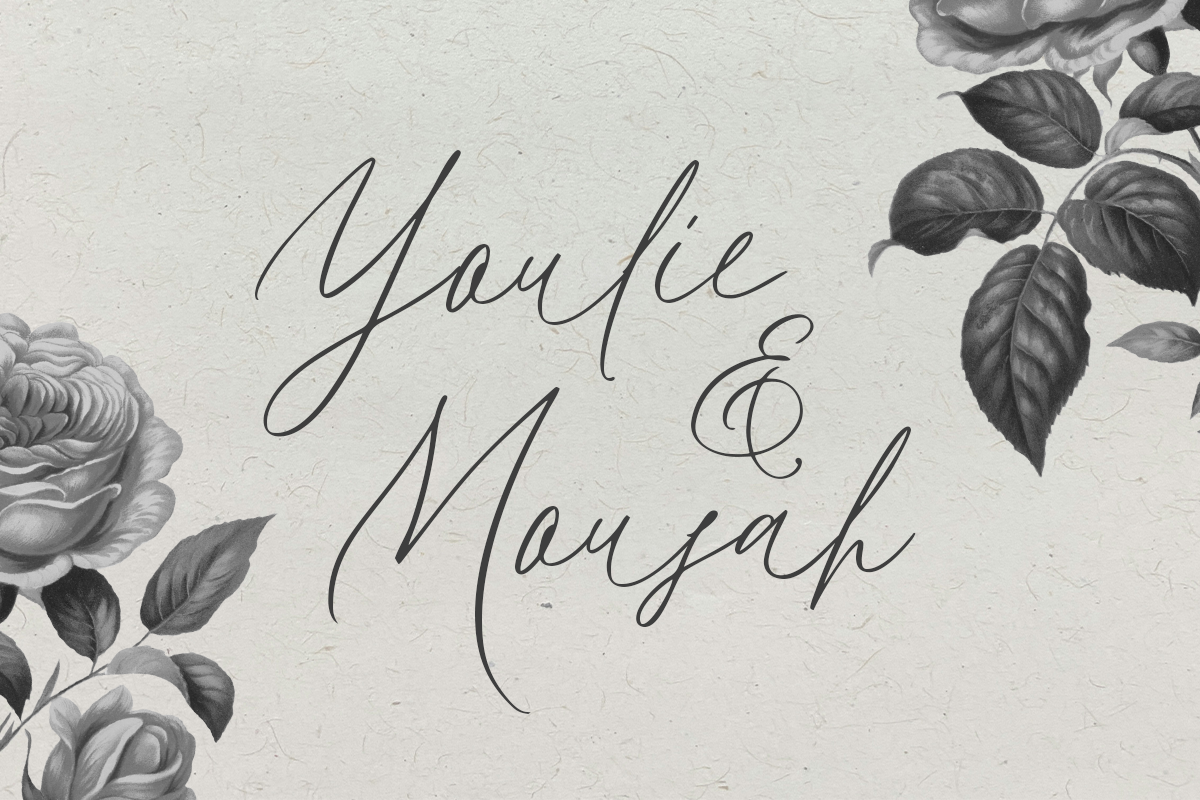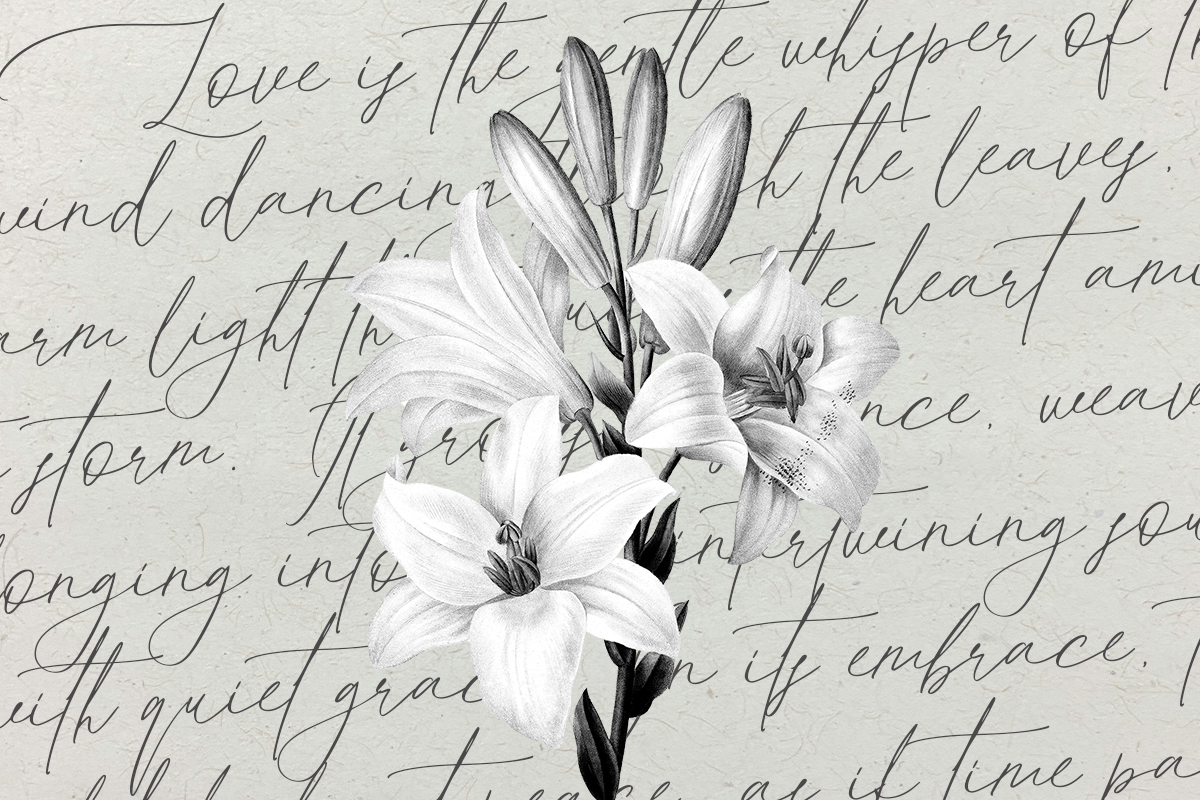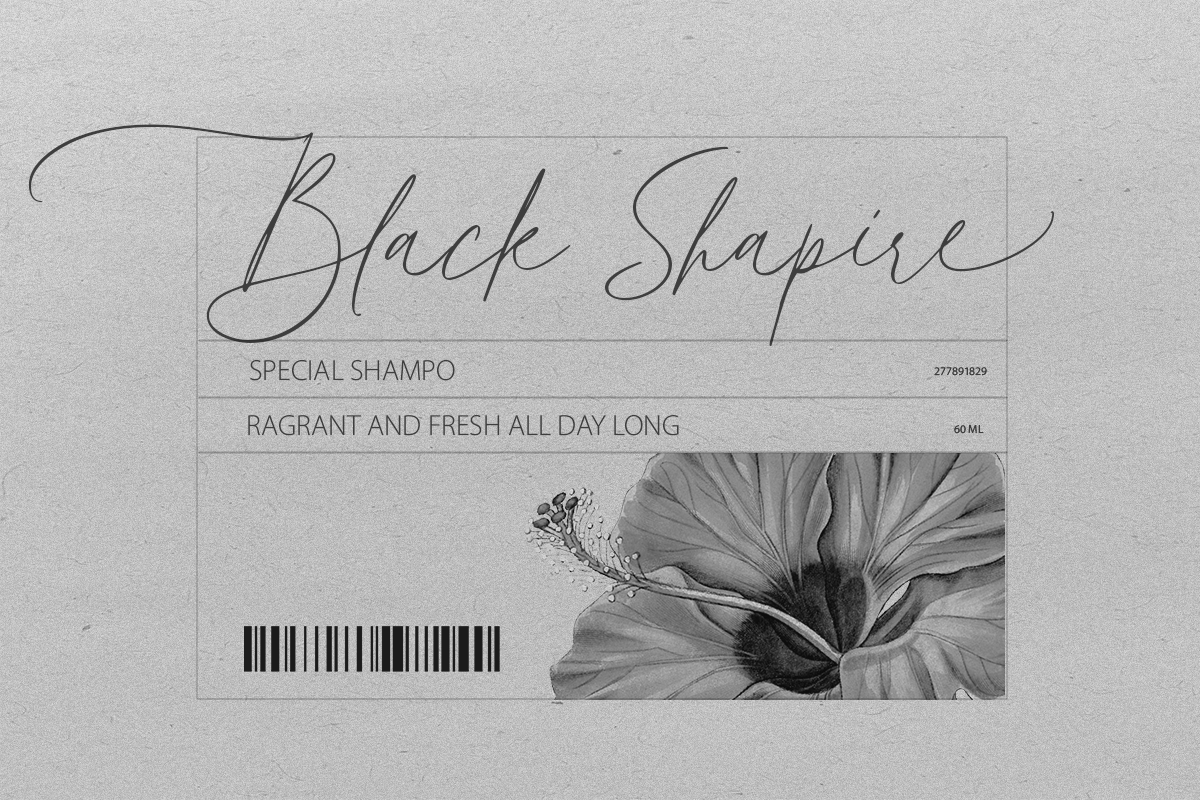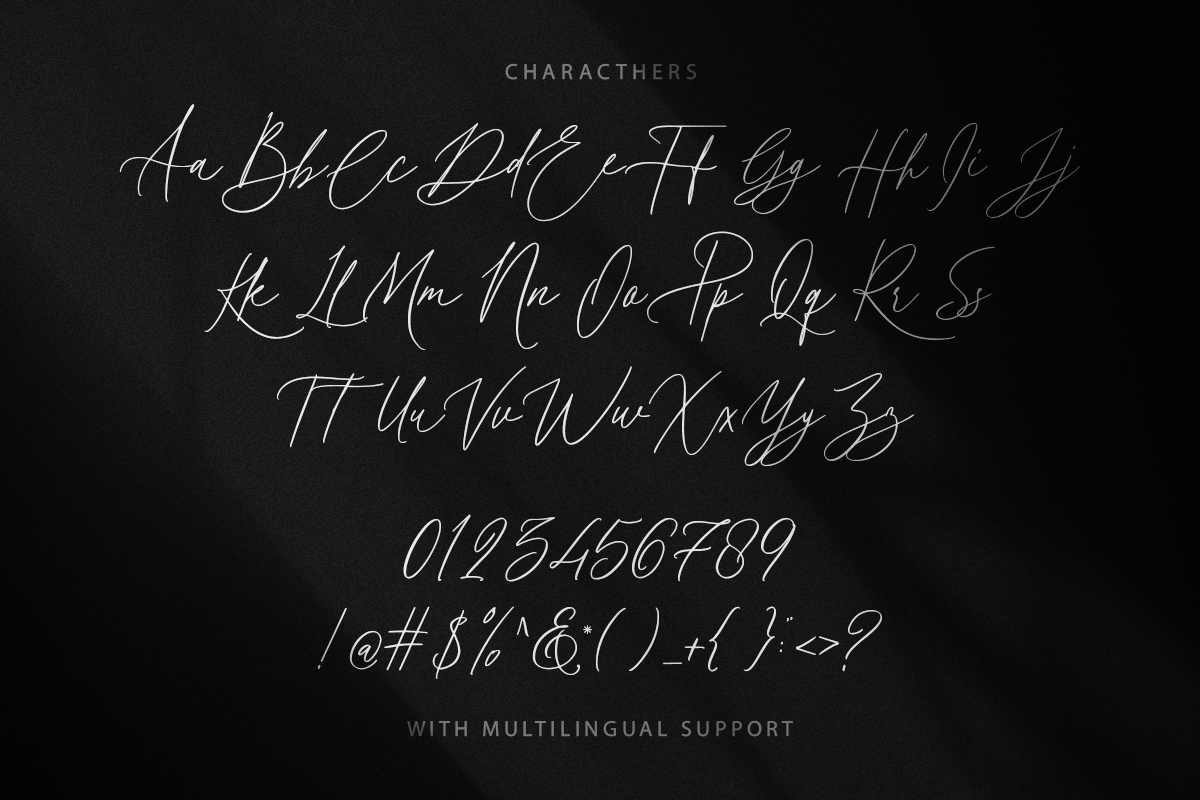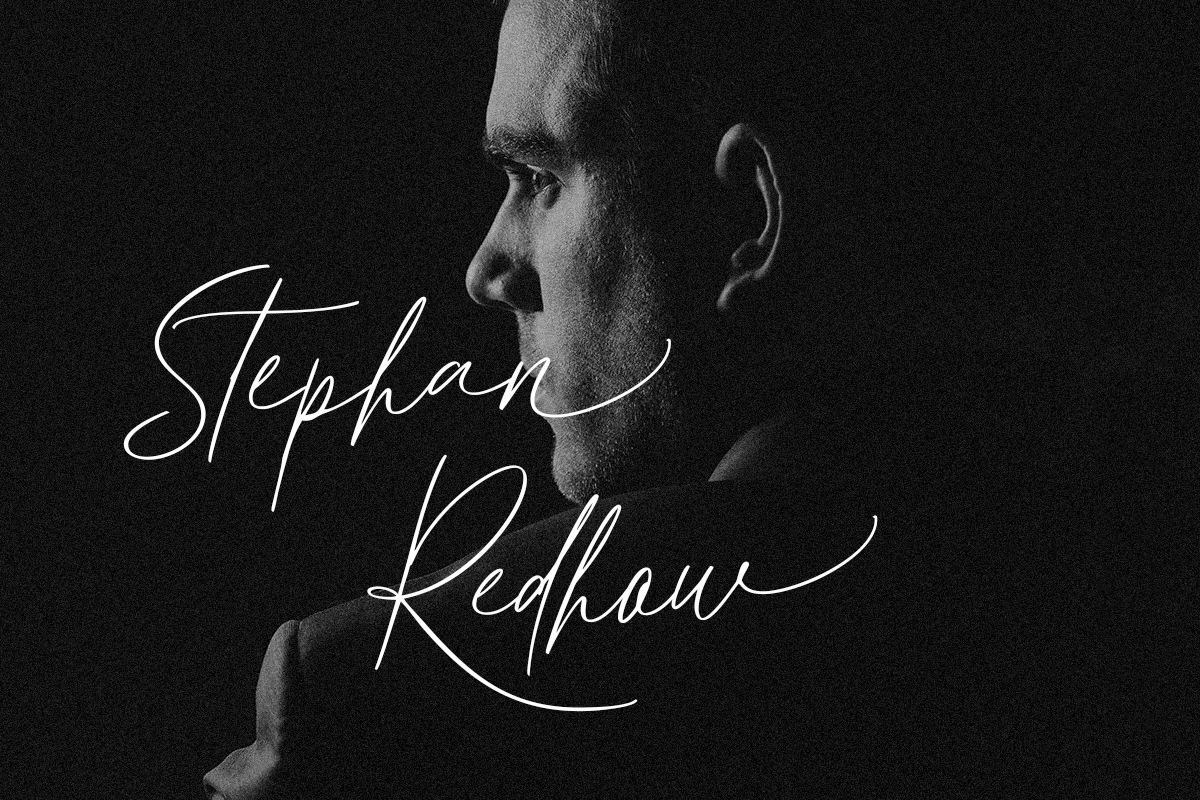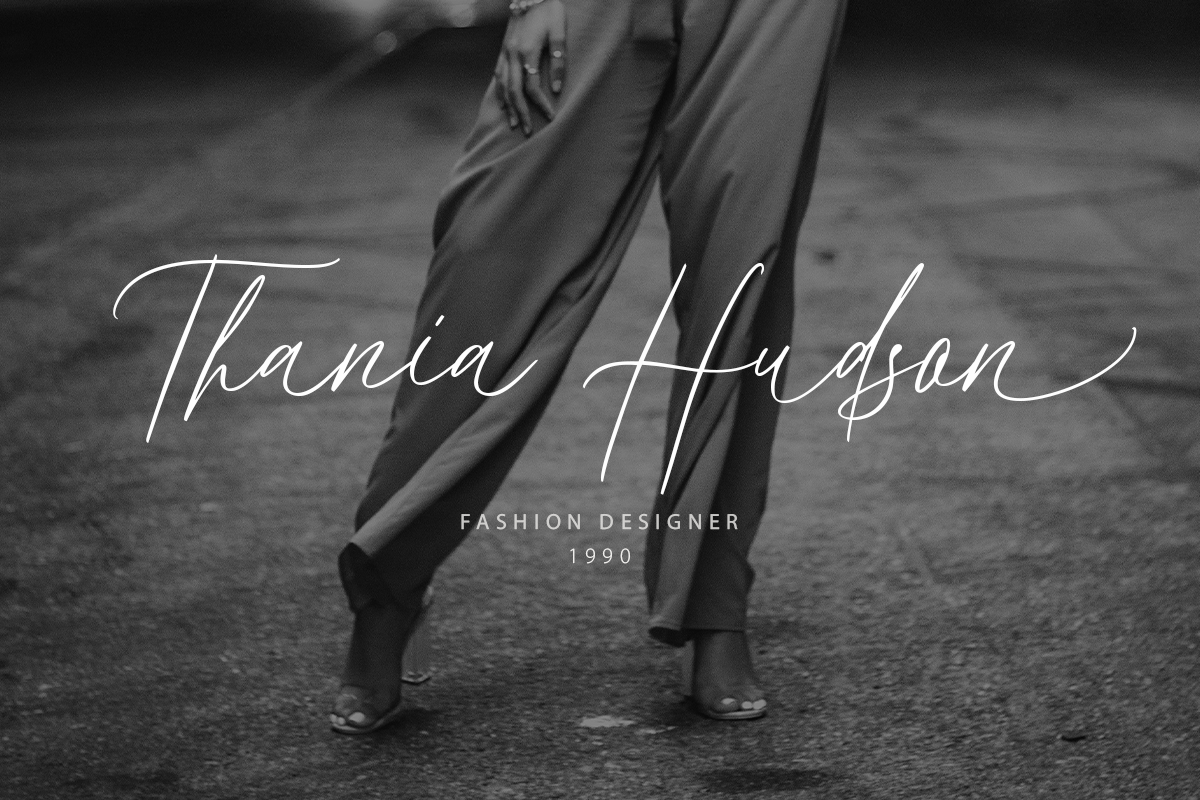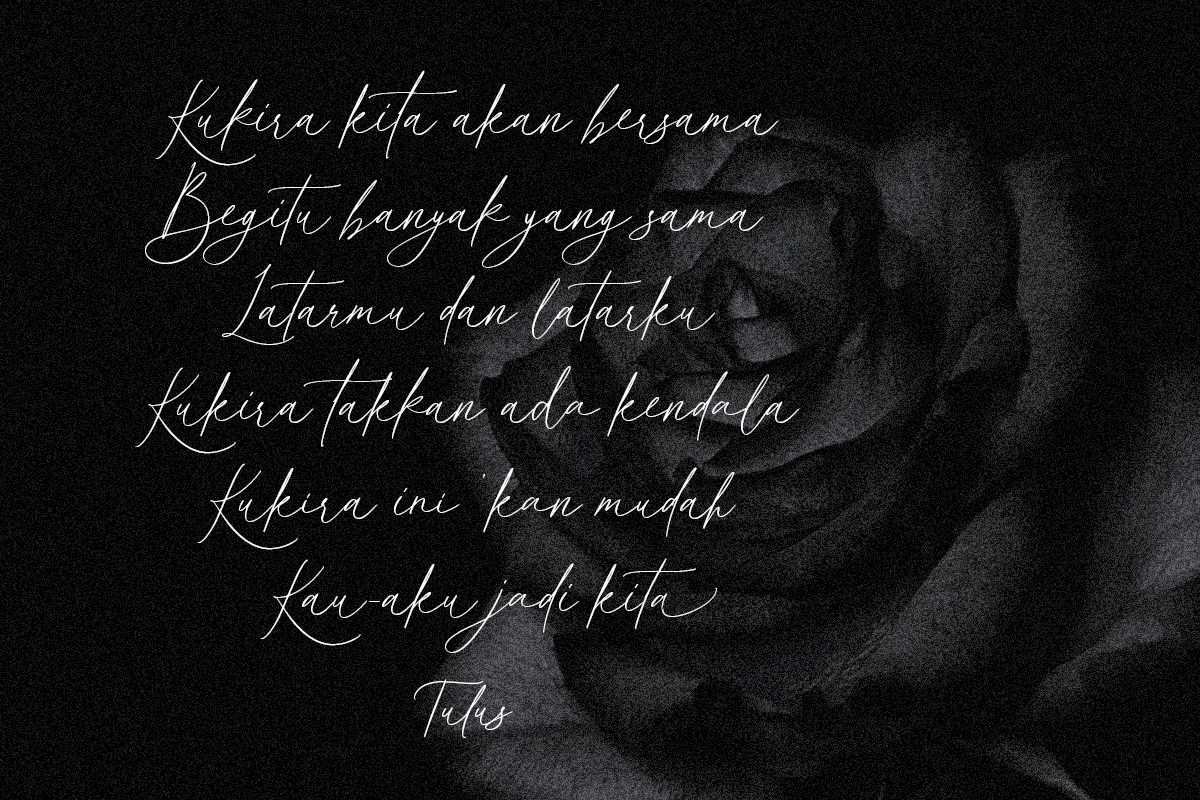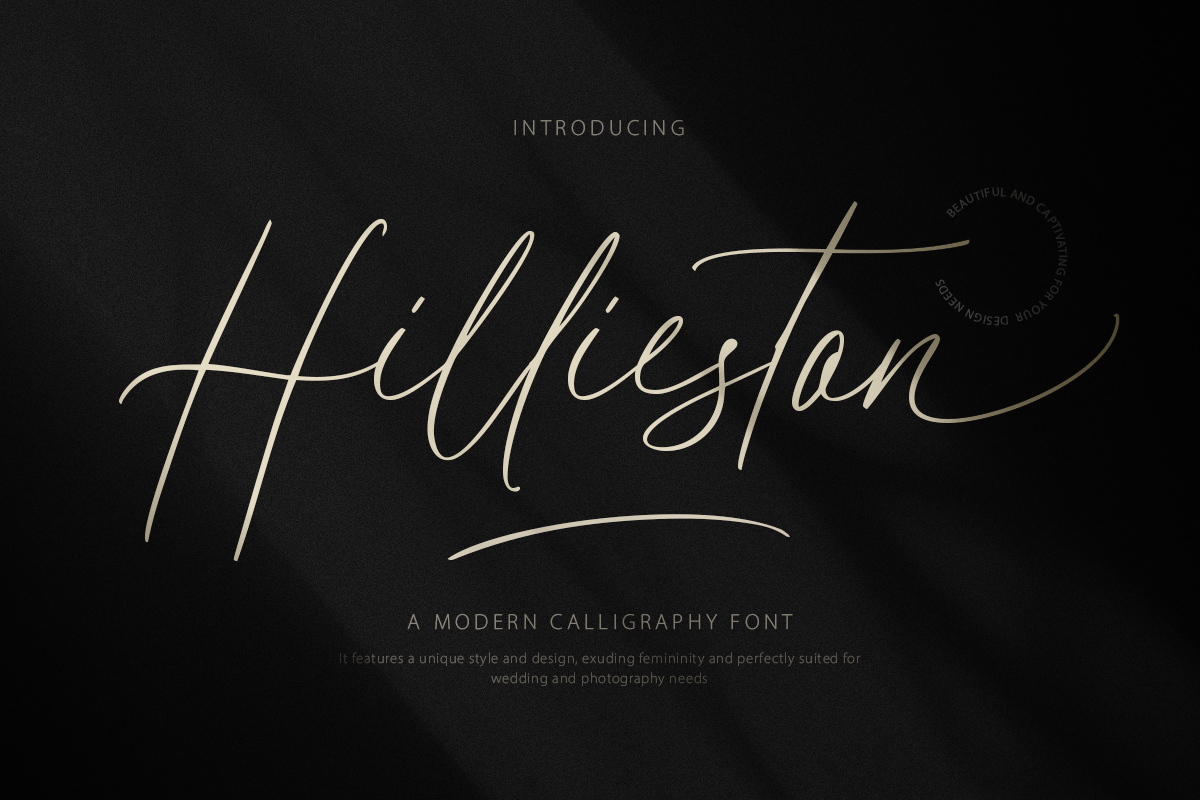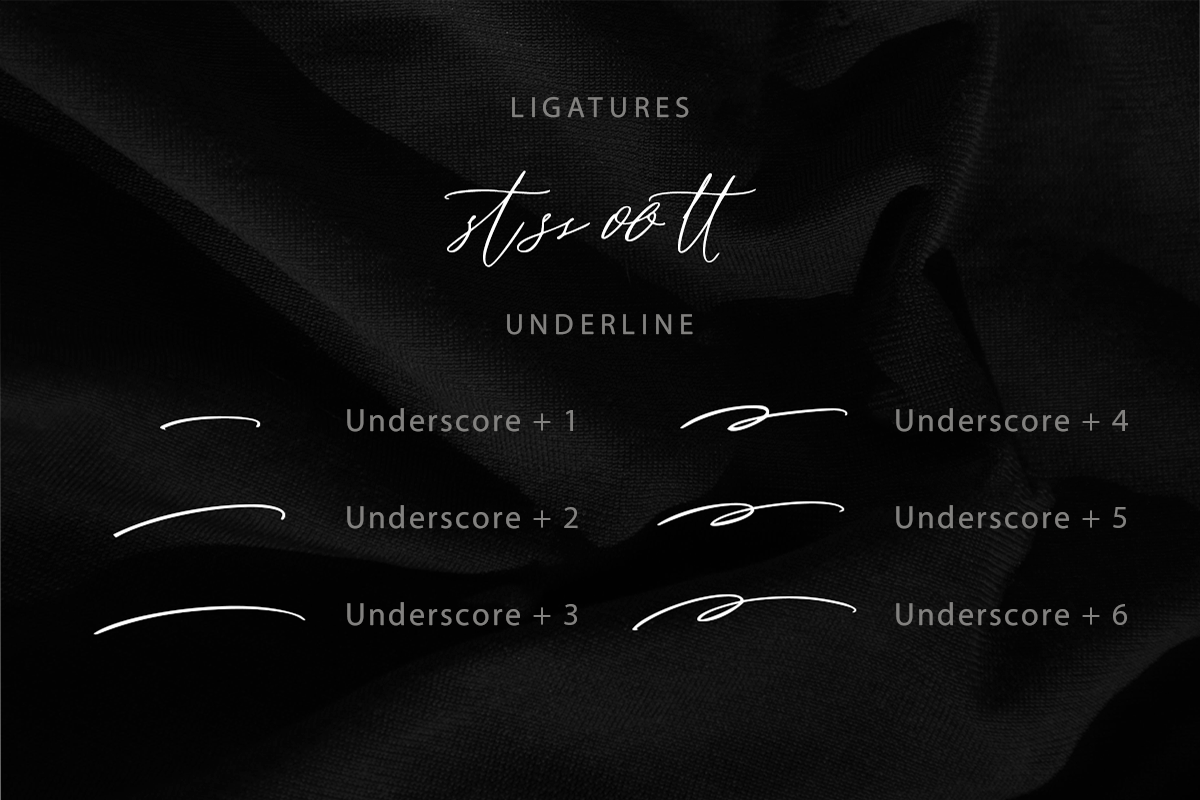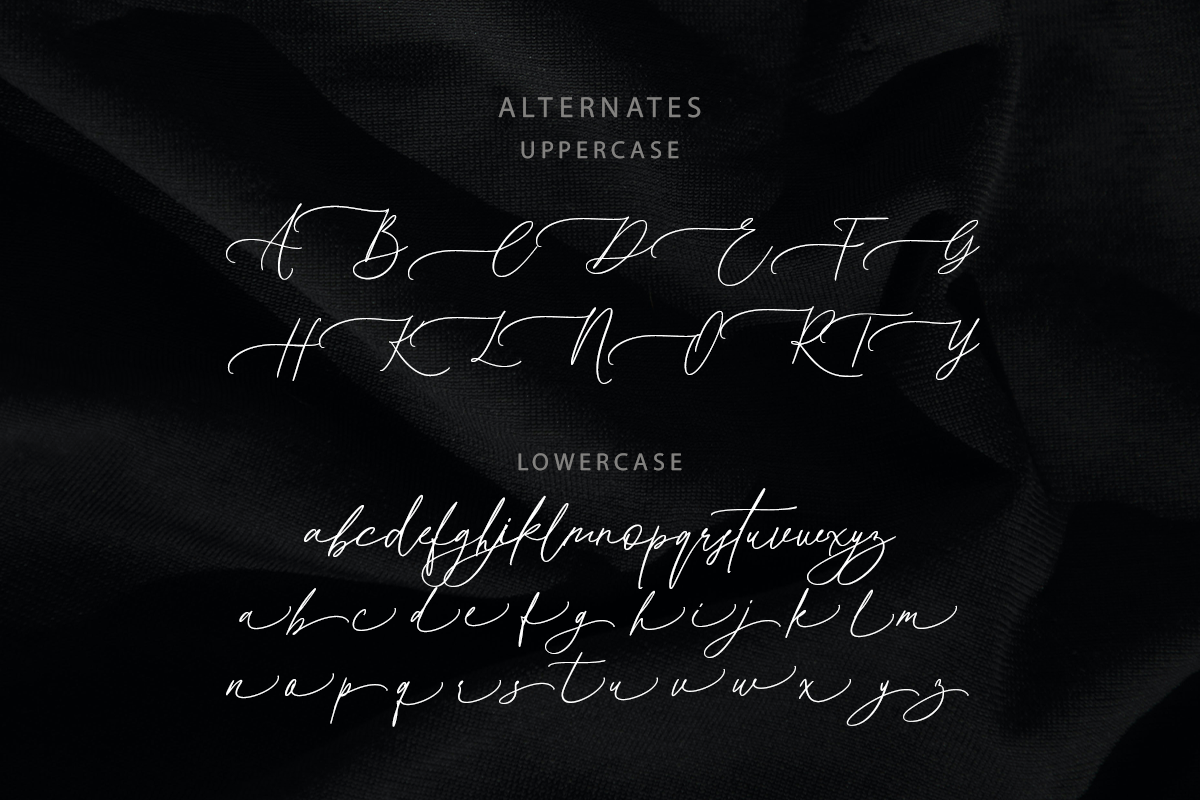
Hillieston Elegant Wedding Font
Hillieston is a beautiful script font with smooth and elegant flow. It features alternates that can be used to enhance and personalize your designs, making it perfect for a variety of creative projects. Whether you're designing wedding invitations, photography branding, inspiring quotes, or any other artistic creation, Hillieston brings a touch of sophistication to every design.
Although it’s a script font, its refined and graceful appearance makes it versatile for a wide range of design styles, adding elegance to both formal and casual projects.
Enhance your designs with the timeless elegance of Hillieston!